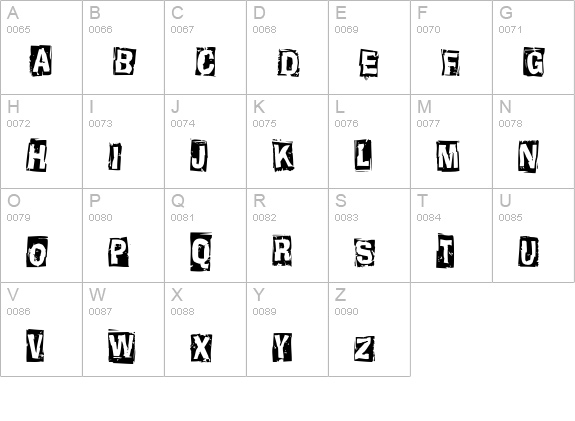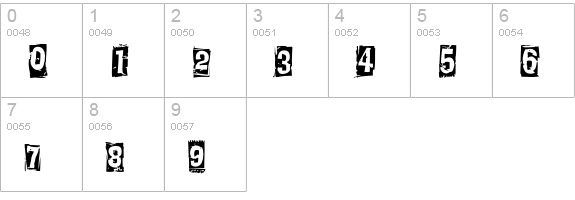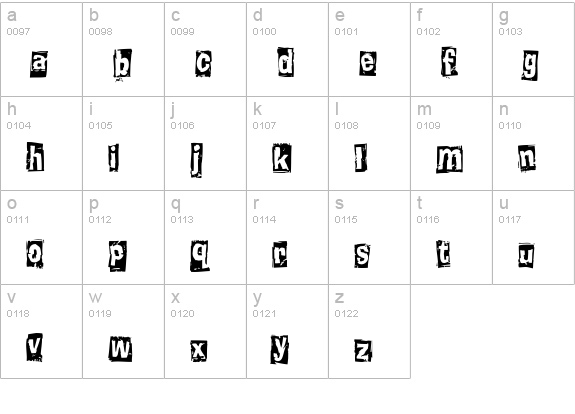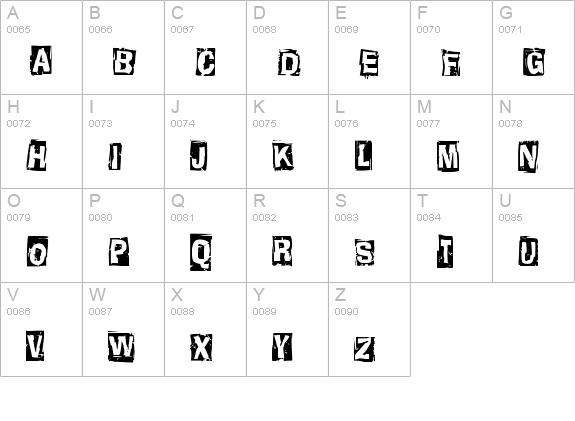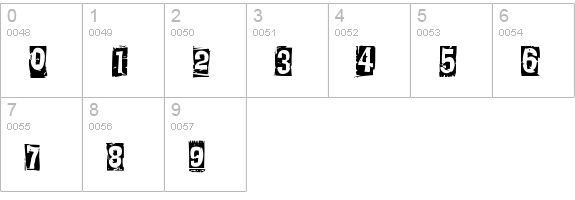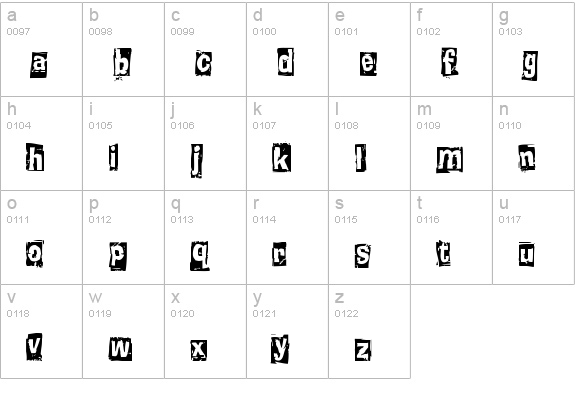
KnuckleheadBoxed Font Details
Introducing KnuckleheadBoxed font, a striking display typeface that exudes boldness and character. With its unique boxed design and expressive letterforms, KnuckleheadBoxed font is perfect for making a statement in your designs. Whether you're creating posters, logos, or packaging, this font is sure to capture attention and leave a lasting impression. The best part? KnuckleheadBoxed font is completely free to download at FontsMarket.com. This means you can easily add this eye-catching font to your collection without breaking the bank. Don't miss out on the opportunity to enhance your projects with the distinctive style of KnuckleheadBoxed font. Download it today and let your creativity shine!